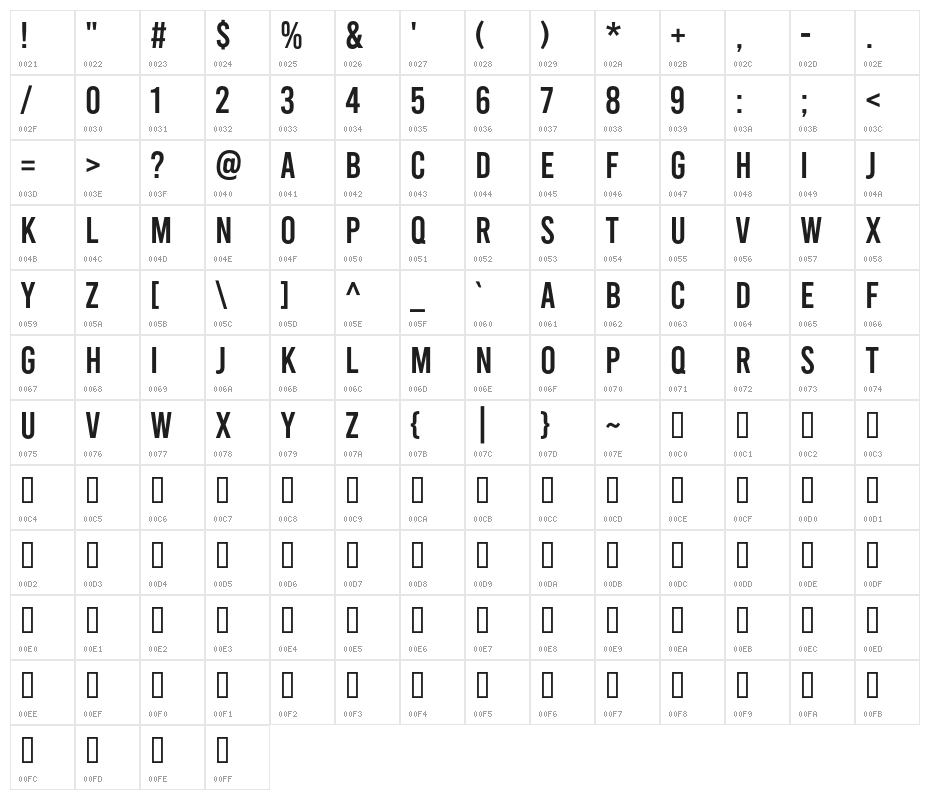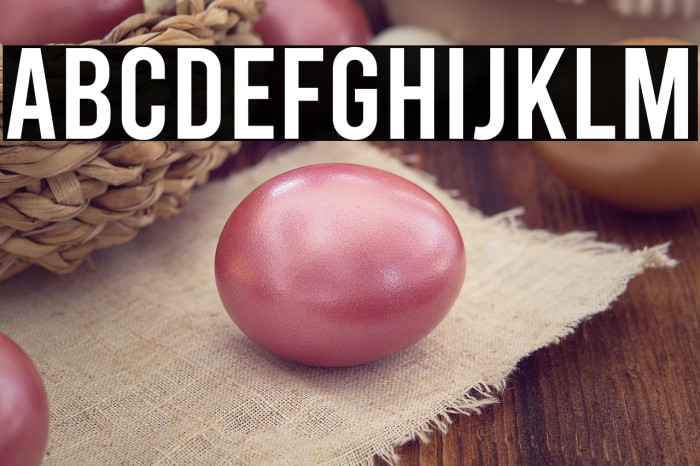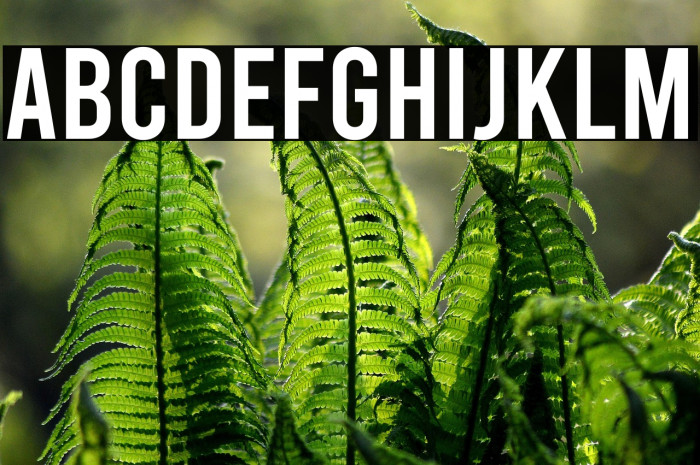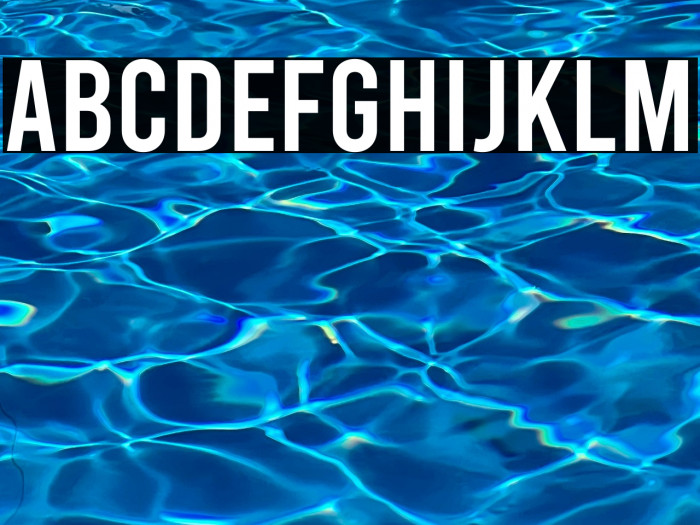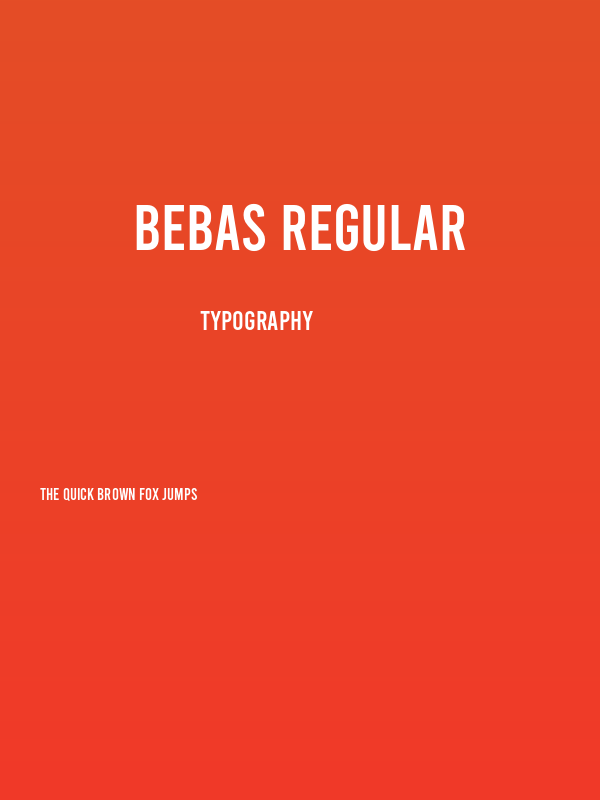
Bebas Regular Font
Bebas Regular Description
This font features a clean and bold sans-serif style with uniform stroke widths, giving it a modern and professional appearance. The characters are tall and narrow, contributing to a condensed look that is both striking and legible. The uppercase letters are particularly prominent, with a strong geometric structure that enhances readability. The numerals and special characters maintain the same boldness and clarity, ensuring consistency across all text elements. This typeface is versatile, suitable for a range of design applications where a contemporary and impactful presence is desired.
| Proposed Projects | Ideal for headlines, posters, branding, and advertising where a strong visual impact is needed. |